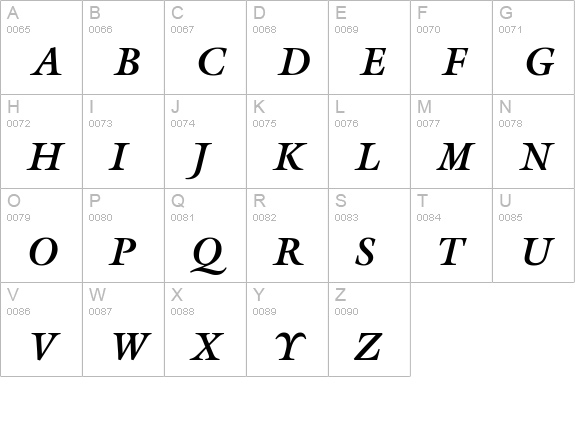
Gareth-BoldItalic Font Details
Introducing Gareth-BoldItalic font, a stunning and elegant typeface that exudes confidence and sophistication. With its bold and italicized design, this font is perfect for making a statement in any project or design. The Gareth-BoldItalic font features strong, sharp lines and a modern flair that will elevate your text to new heights. What's even better is that this amazing font is available for free download at FontsMarket.com. Yes, you read that right - absolutely free! Whether you're working on a graphic design project, creating a logo, or simply looking to add a touch of style to your documents, the Gareth-BoldItalic font is the perfect choice. Don't miss out on this incredible opportunity to enhance your designs with the Gareth-BoldItalic font. Download it for free today at FontsMarket.com and let your creativity shine!